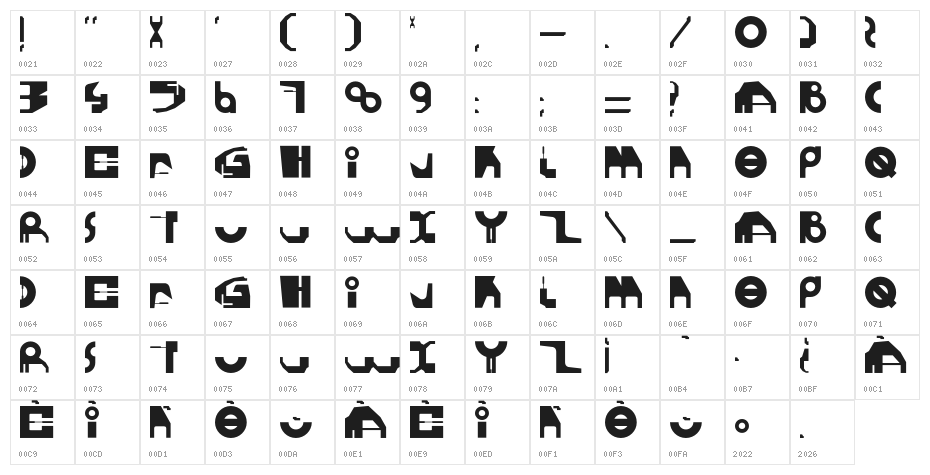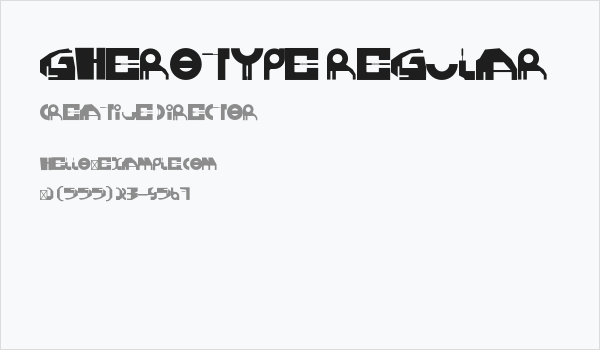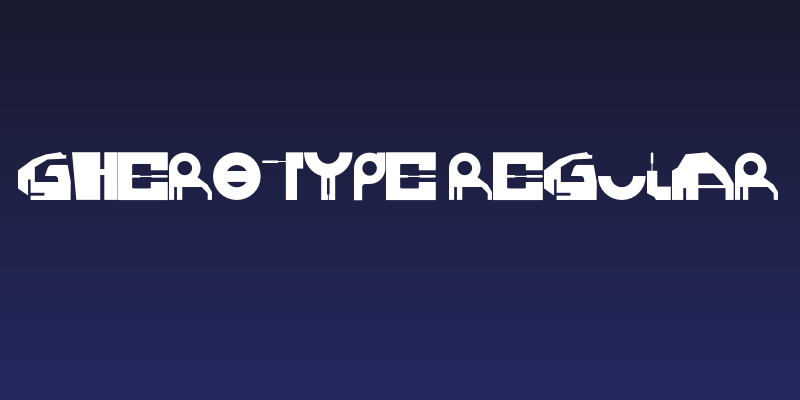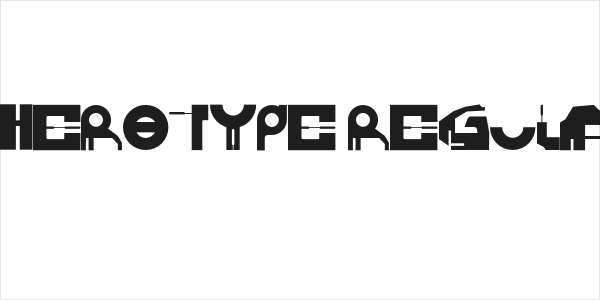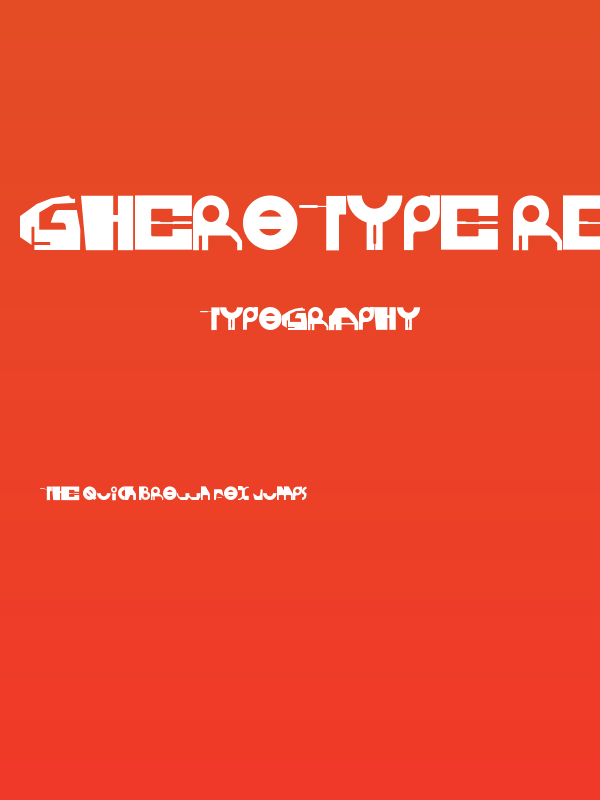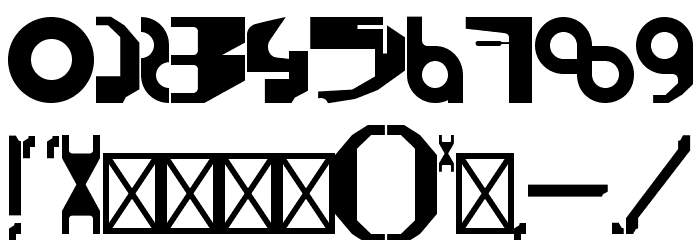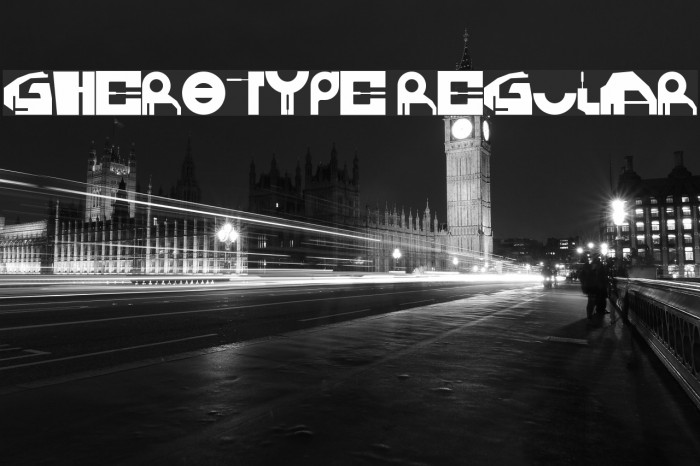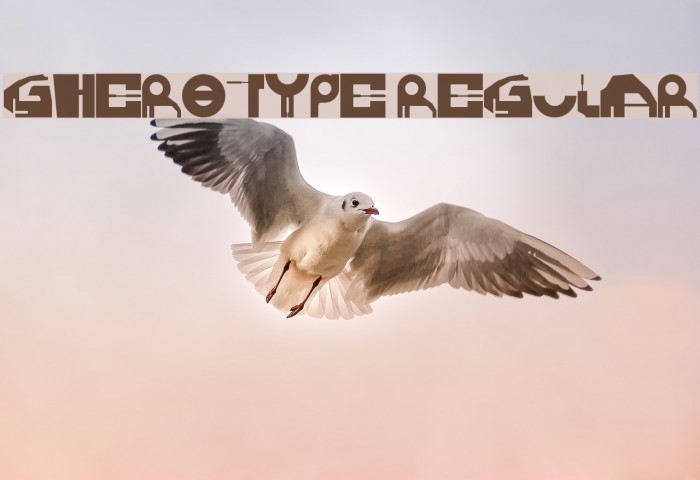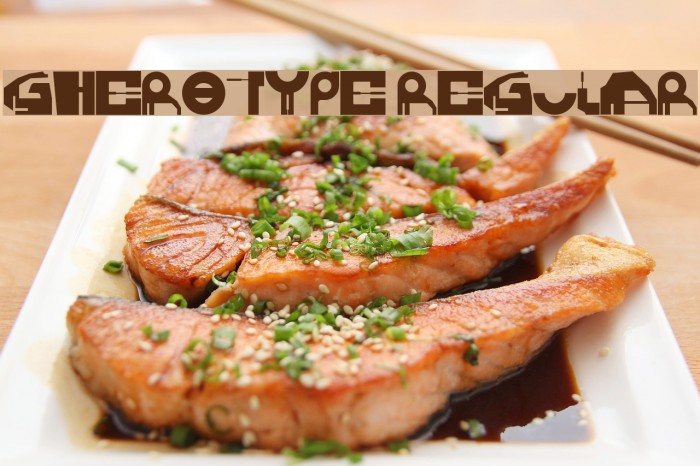
GHEROTYPE REGULAR Font
GHEROTYPE REGULAR Description
This font exhibits a bold and striking design, characterized by its geometric and abstract shapes. The letters are constructed with thick, block-like forms, creating a sense of strength and modernity. The use of negative space is prominent, adding an artistic and avant-garde touch to the overall appearance. The characters are uniquely stylized, with some featuring unexpected cuts and angles that enhance the visual interest. This font is highly decorative and commands attention, making it suitable for creative and unconventional design projects.
| Proposed Projects | Ideal for posters, album covers, branding, and any project requiring a modern and artistic flair. |